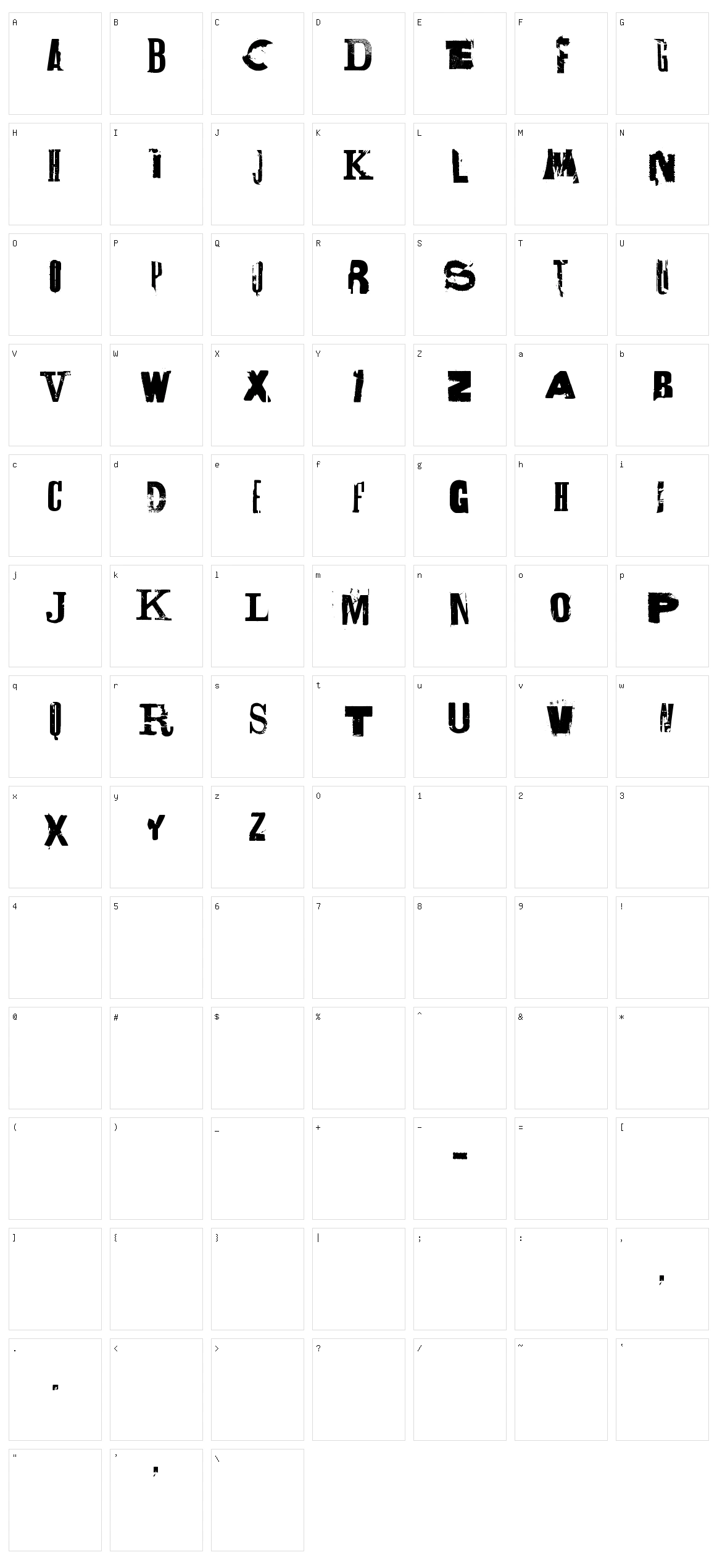
The free font Lettrisme is carefully designed by imagex, showcasing a thoughtful balance of creativity and usability and falls under the Distorted font style. When you download the ZIP file, it contains only 49.13 KB of font files, making it lightweight and quick to download. Please review the license details below to understand permitted usage and distribution rights. If license information is not available, we recommend using this font for personal projects only or contacting the author directly for commercial usage permissions.